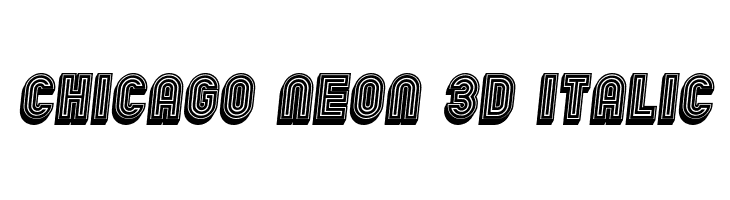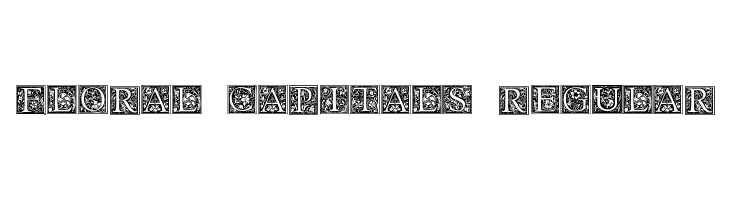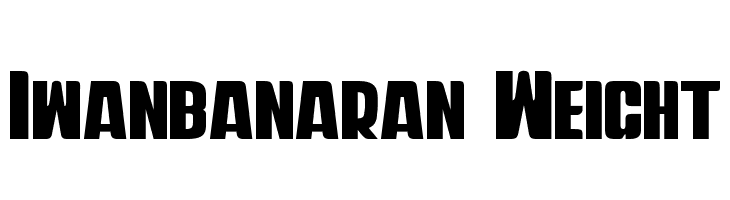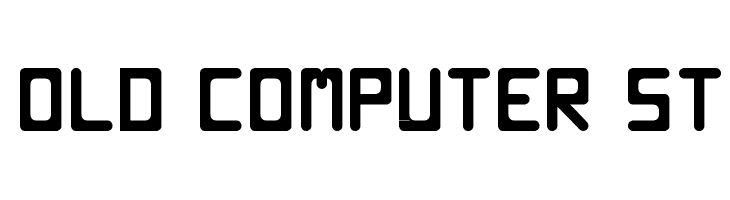
A modern, geometric font with a monospaced appearance and consistent stroke width.
Retro, monospaced font with rounded corners and a digital feel.
A bold, rounded font with smooth curves and a modern, playful style.
A bold, geometric font with strong circular and angular forms.
A bold, 3D neon-style italic font with a retro vibe.
A bold, 3D neon-style italic font with a dynamic and modern look.
Ornate decorative capitals with floral designs in a vintage style.
A bold, rounded font with smooth curves and consistent weight.
A bold, modern font with thick, uniform strokes and tight spacing.
A bold, athletic font with blocky, angular characters ideal for sports-themed designs.